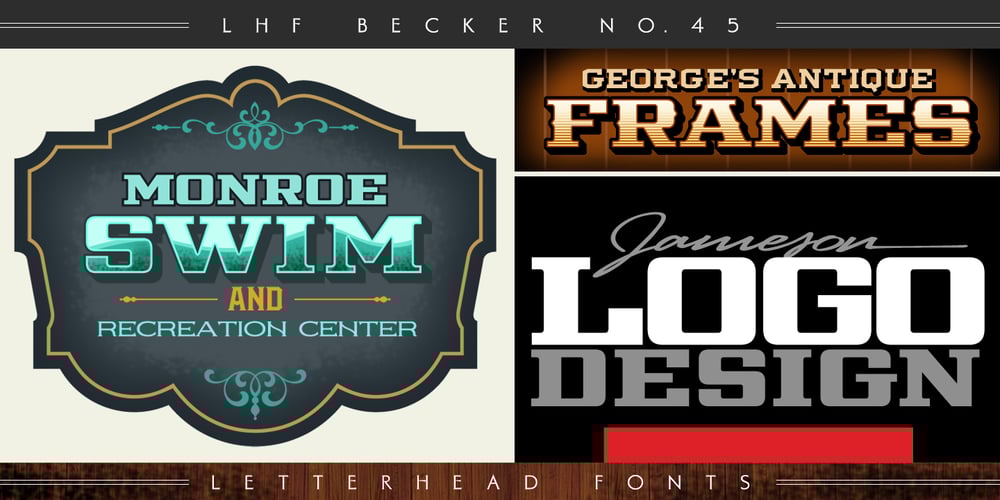
LHF Becker No 45 Font Family was designed by Kaitlin Sims and published by Letterhead Fonts. LHF Becker No 45 contains 3 styles and family package options. 3 fonts perfect for conveying messages quickly and clearly. Looks great with lighter typefaces. Includes regular, shadow, and spur versions. Inspired by 30’s era sign painter Alf Becker.